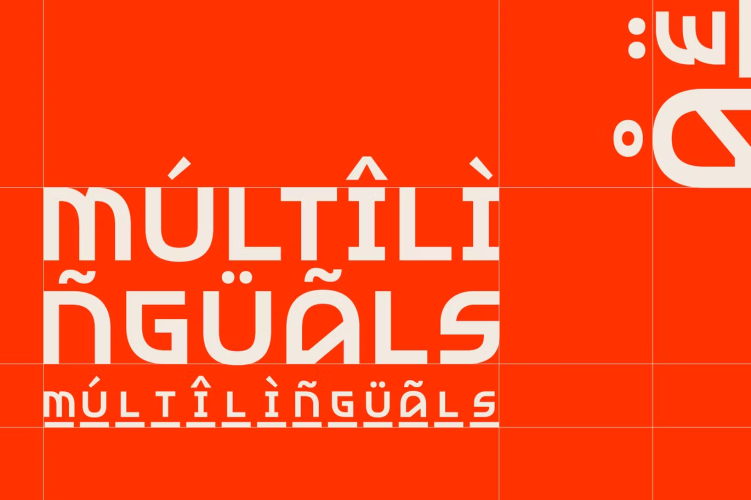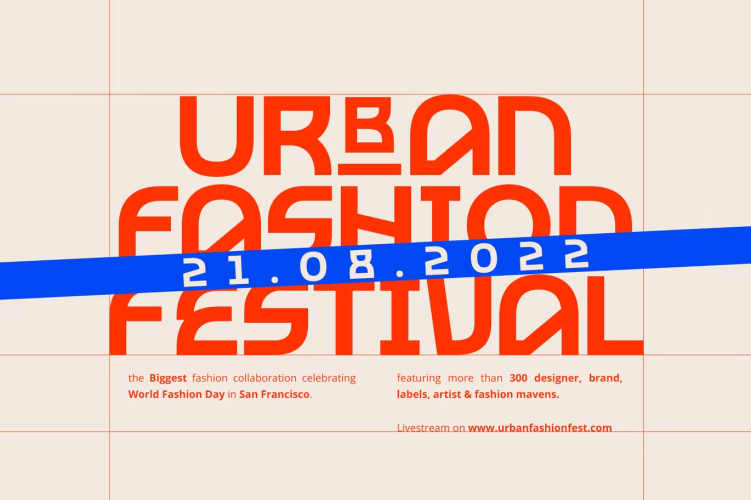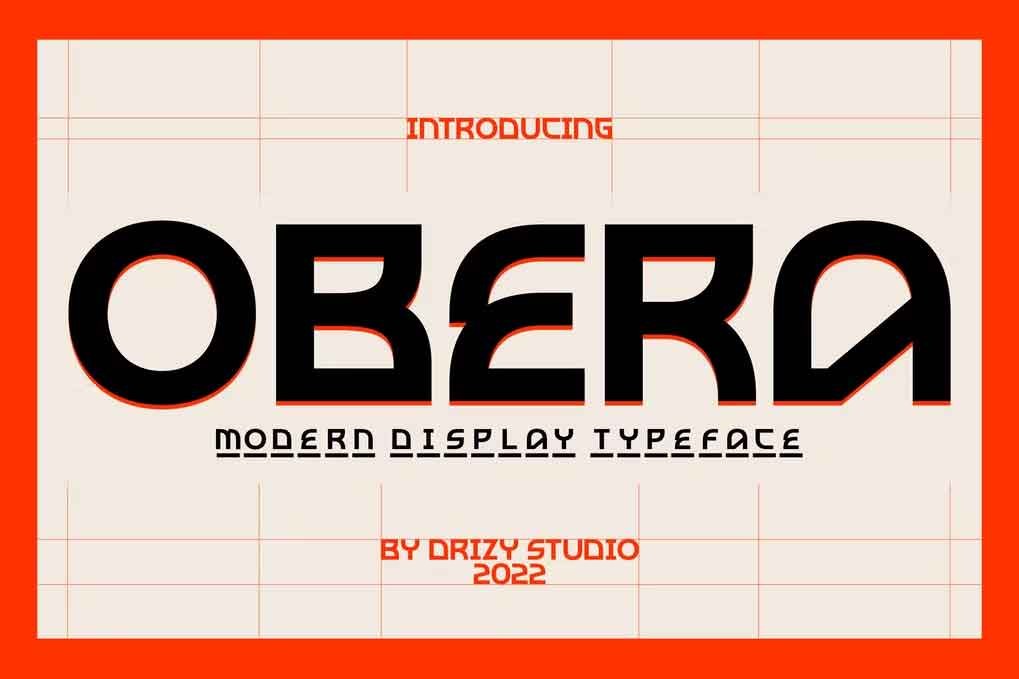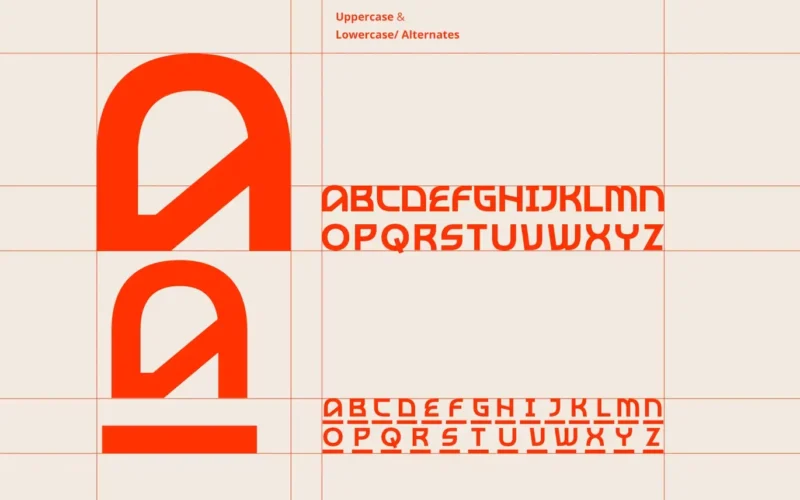
Obera Font
Obera a modern bold font with a touch of ethnic and sci-fi in every form. Obera is great for creating eye-catching headlines, logo, applicable for any type of graphic de…
Obera a modern bold font with a touch of ethnic and sci-fi in every form. Obera is great for creating eye-catching headlines, logo, applicable for any type of graphic design.
Drizy Studio